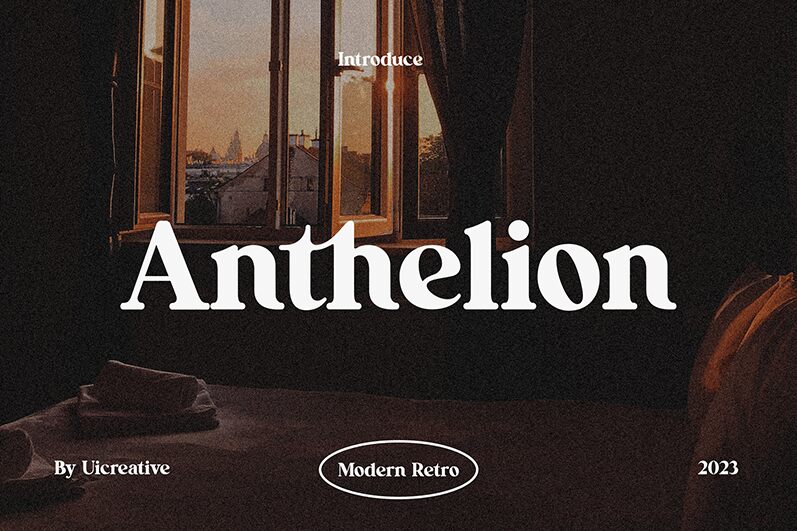
Anthelion
Anthelion, designed by UI Creative, captivates with its bold serif elegance. Each character boasts a striking presence, making it perfect for commanding attention. The bold weight enhances its readability while maintaining an air of sophistication and timeless charm.
Ideal for branding, headlines, and editorial design, Anthelion infuses any project with a sense of authority and classic beauty. Its robust style ensures that messages are delivered with clarity and impact. Whether used in print or digital formats, Anthelion stands out as a versatile choice for designers seeking both aesthetic appeal and functional excellence.